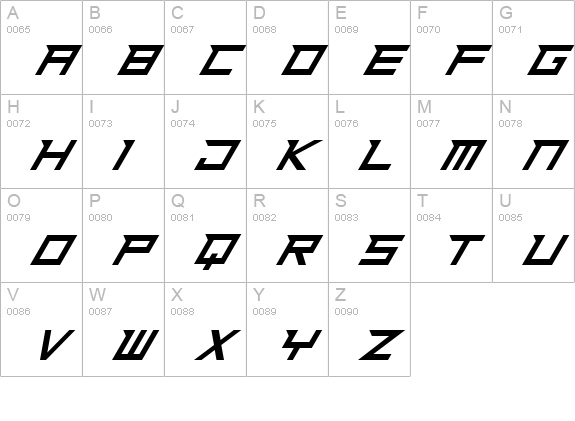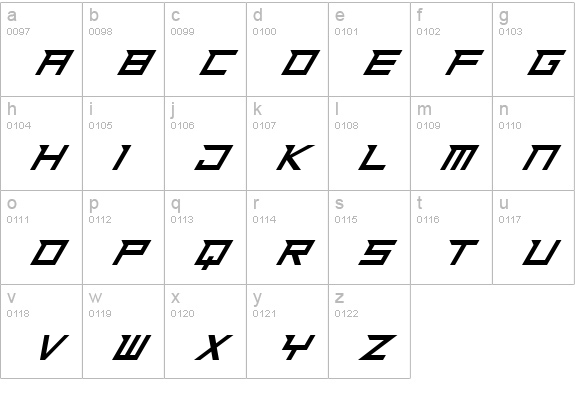
Ninja Rush Font Details
Ninja Rush is a free for personal use font in the Modern > Sci-Fi category, designed by Darrell Flood. It has been downloaded 115 times and is available for Windows, Mac and Linux.
Introducing Ninja Rush font, a sleek and dynamic typeface that captures the essence of speed and agility. This electrifying font is perfect for projects that require a touch of excitement and energy. With sharp edges and a modern design, Ninja Rush font will add a sense of power and movement to any text.